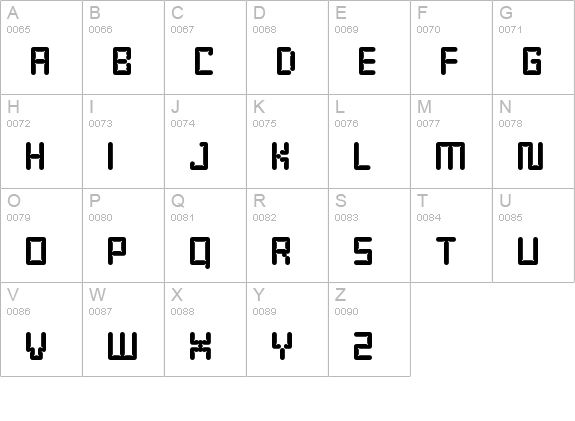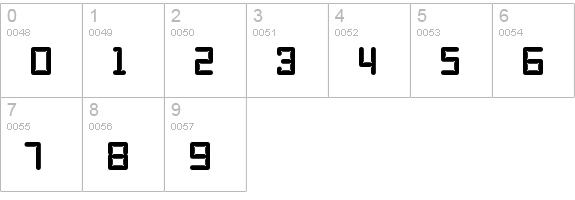
Enam Bold Font Details
Enam Bold is a strong, high-contrast variant in the Enam typeface family \xE2\x80\x94 well suited to headlines, attention-grabbing titles, and strong calls-to-action.
Enam Bold font is a striking and modern typeface that exudes confidence and sophistication. Its bold and impactful design makes it perfect for headings, titles, and other eye-catching text elements. The strong lines and geometric shapes of Enam Bold demand attention and make a statement in any design project. What makes Enam Bold even more appealing is that it is available for free download at FontsMarket.com. This means that you can easily access this stylish font and use it in your projects without any cost. Whether you're working on a poster, logo, or website design, Enam Bold will add a touch of elegance and flair to your work. Don't miss out on this fantastic opportunity to enhance your designs with the sleek and modern Enam Bold font - download it for free today!